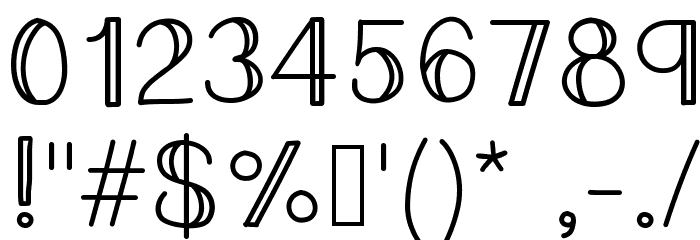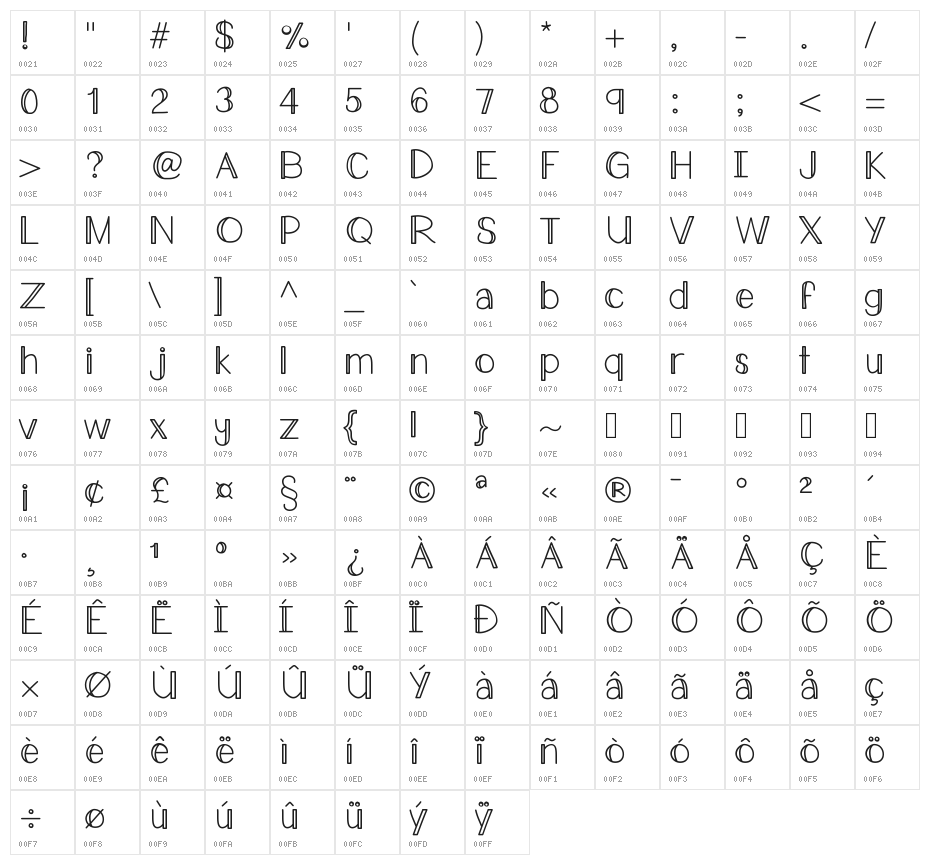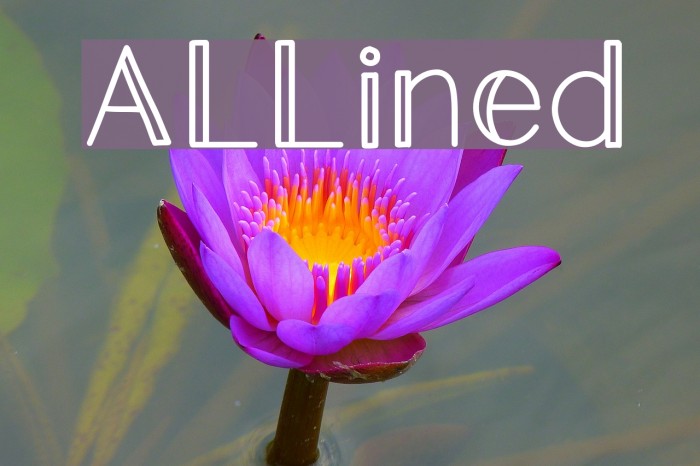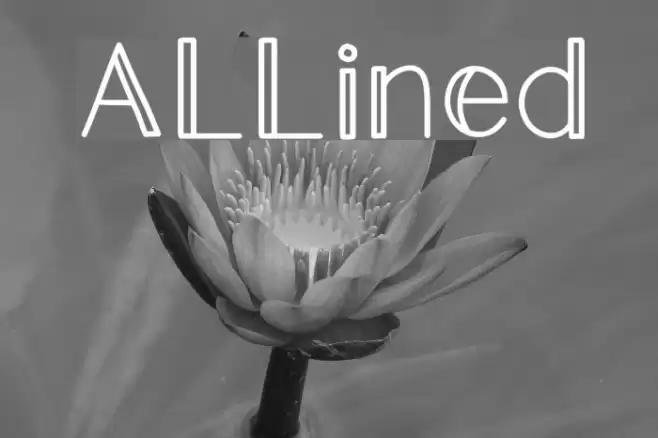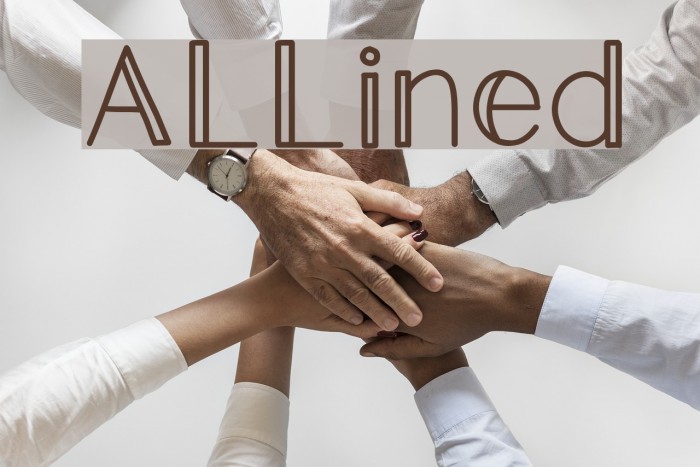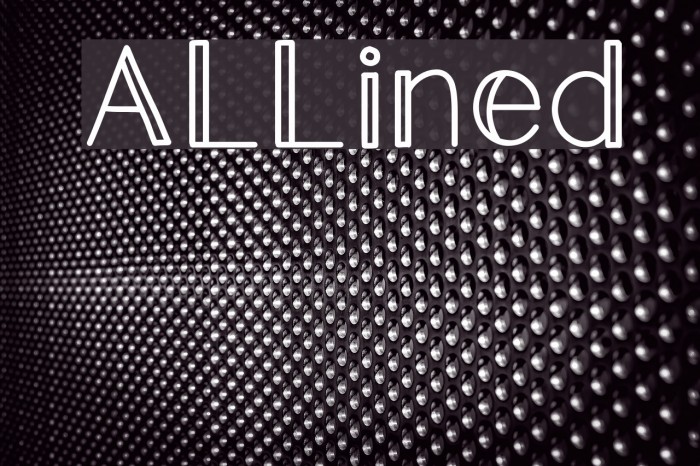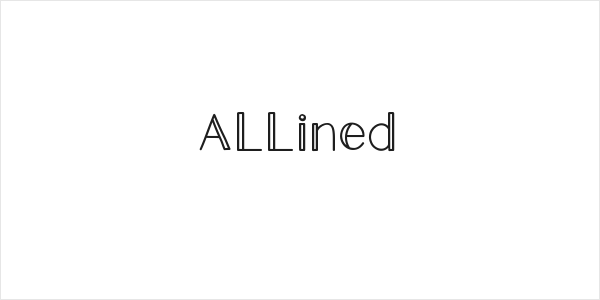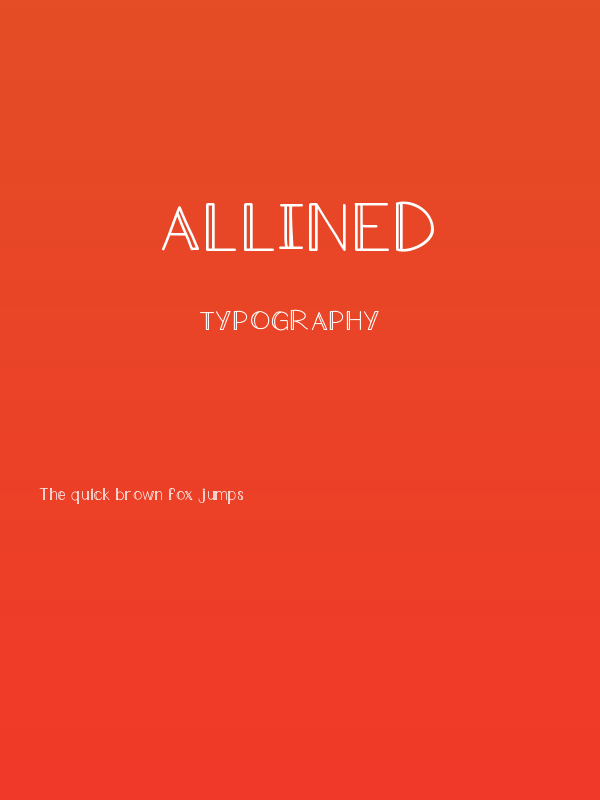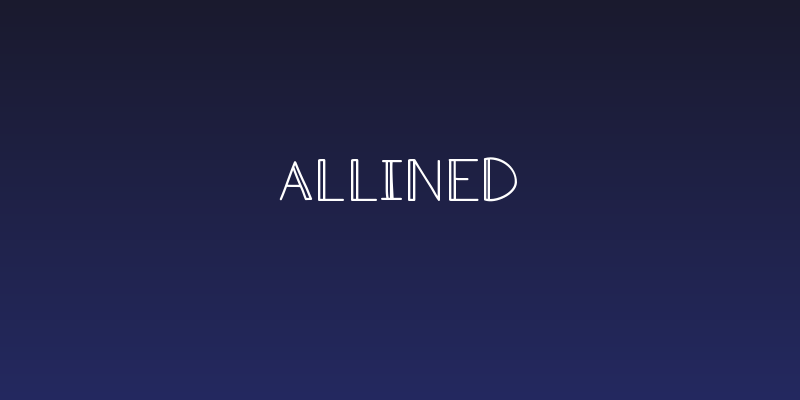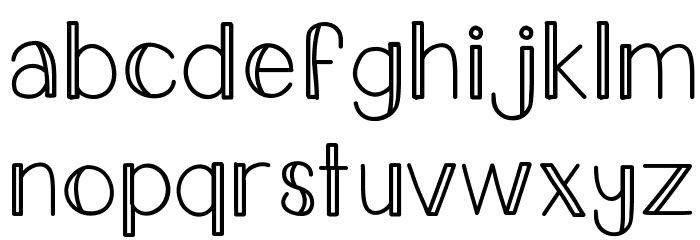
ALLined Font
ALLined Description
This font features a modern and playful design with a unique blend of geometric and rounded elements. The uppercase letters are characterized by their clean lines and open counters, giving them a spacious and airy feel. The lowercase letters maintain a consistent style, with smooth curves and a slightly whimsical touch. The numerals are clear and legible, making them suitable for various applications. Special characters are well-integrated, maintaining the overall aesthetic. This font's distinct style makes it ideal for creative projects that require a touch of personality and flair.
| Proposed Projects | Ideal for branding, posters, children's books, and creative digital content. |